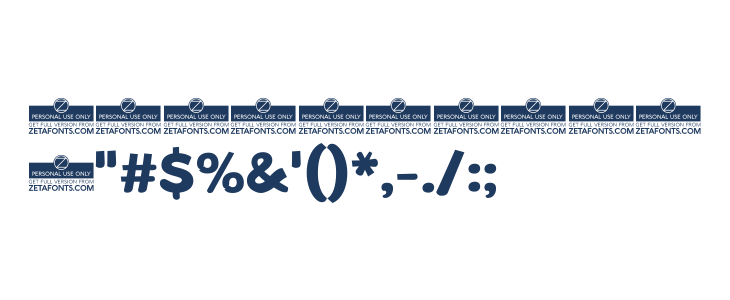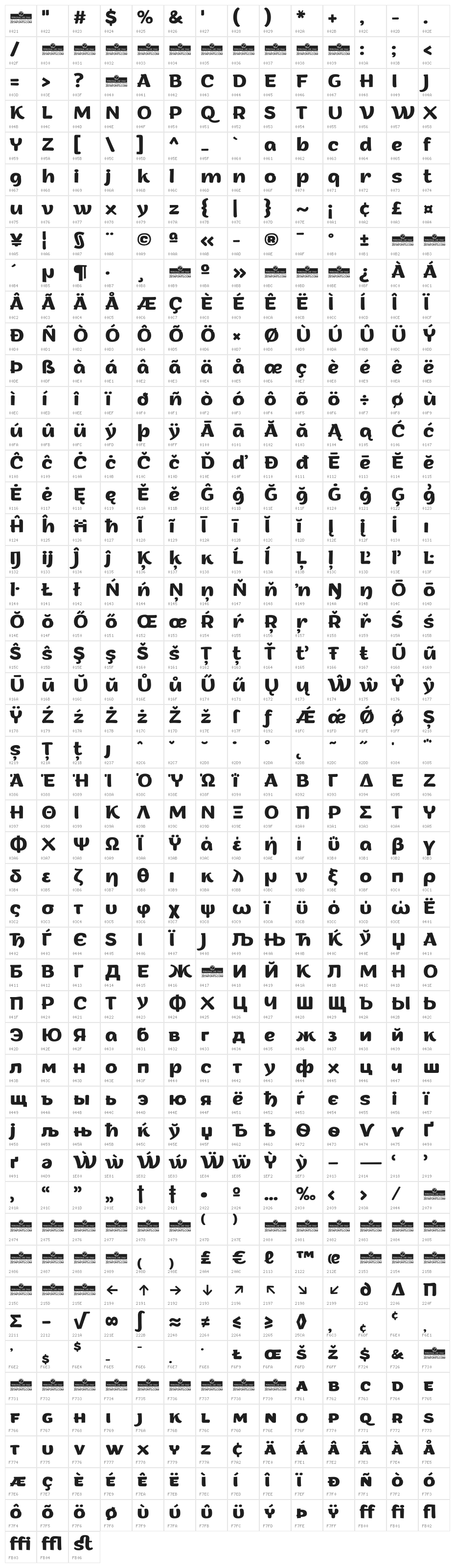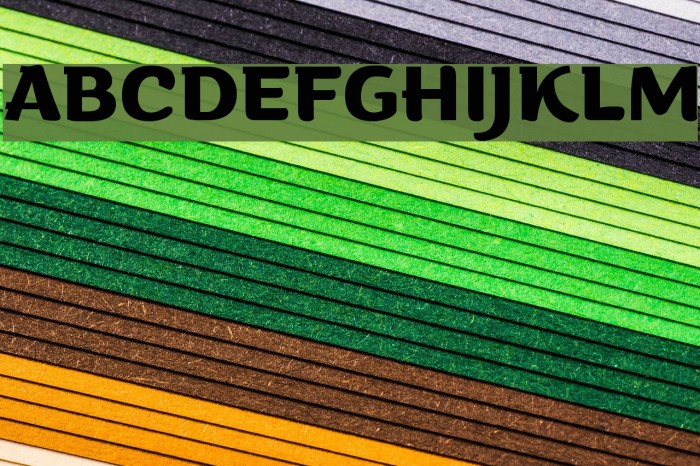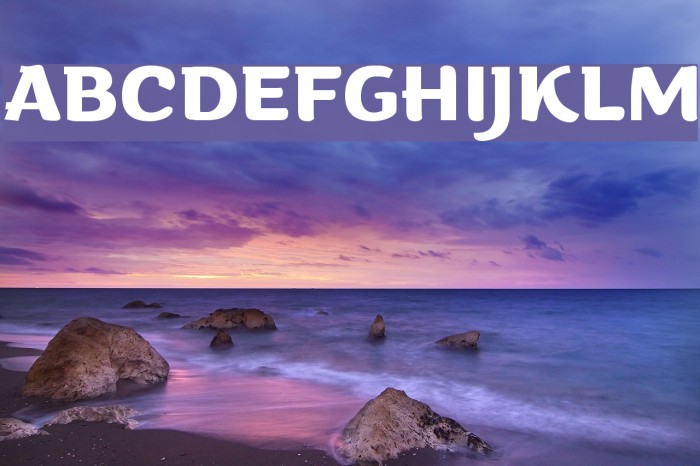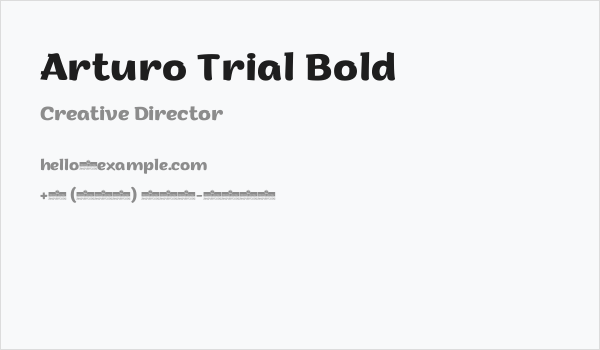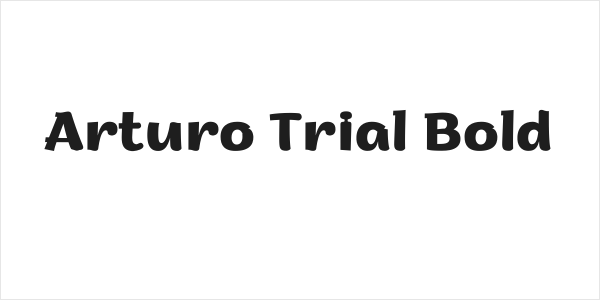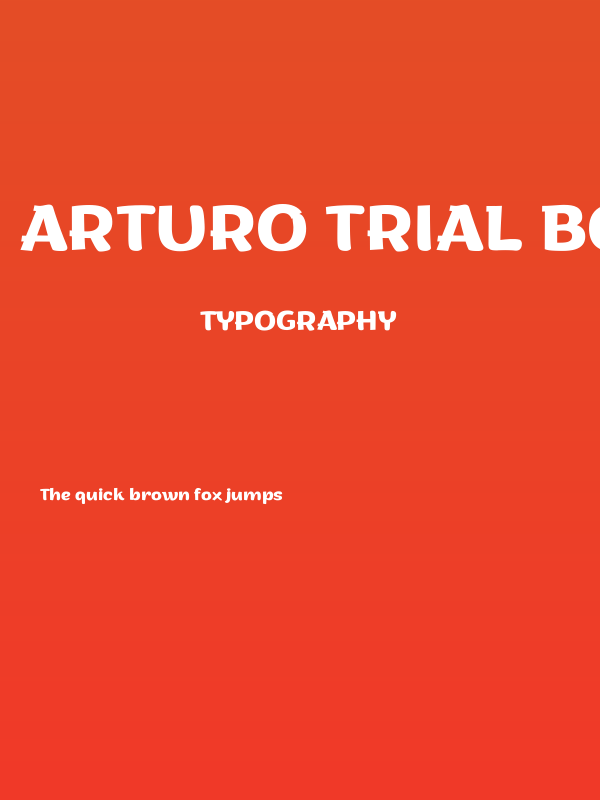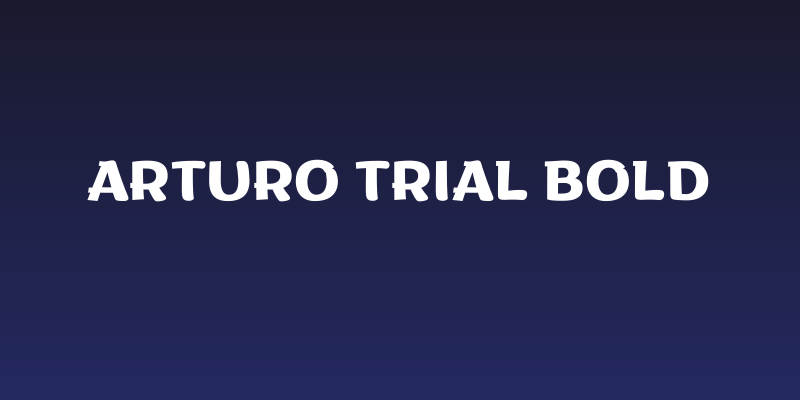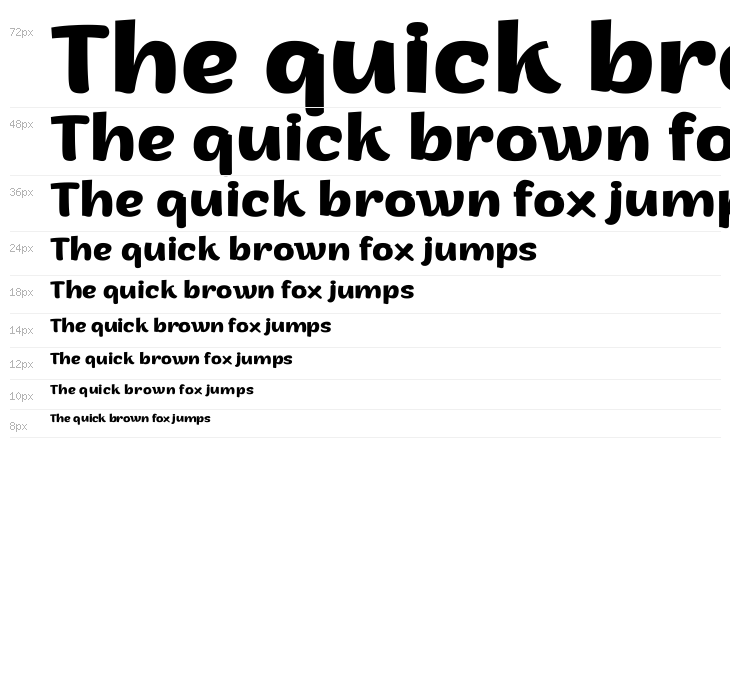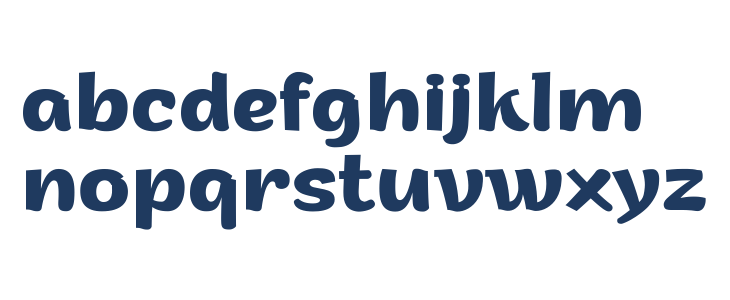
Arturo Trial Bold Font
Arturo Trial Bold Description
This bold typeface features a playful and rounded style, characterized by its thick strokes and smooth curves. The letters have a friendly and approachable appearance, making it suitable for a variety of informal and creative applications. The uppercase and lowercase letters maintain a consistent weight, providing a balanced and cohesive look. The numerals and special characters are designed to complement the overall style, ensuring versatility across different uses. The font's boldness and rounded edges give it a modern yet whimsical feel, ideal for projects that require a touch of personality and warmth.
| Overall Style | Modern, Playful |
| Proposed Projects | Ideal for children's books, playful branding, creative posters, and social media graphics. |